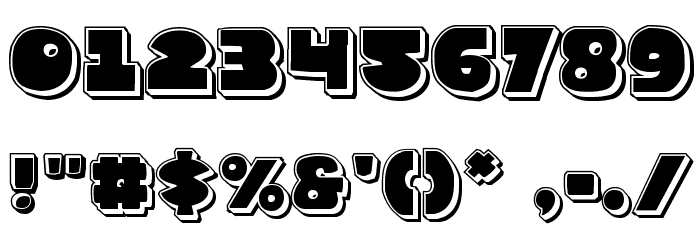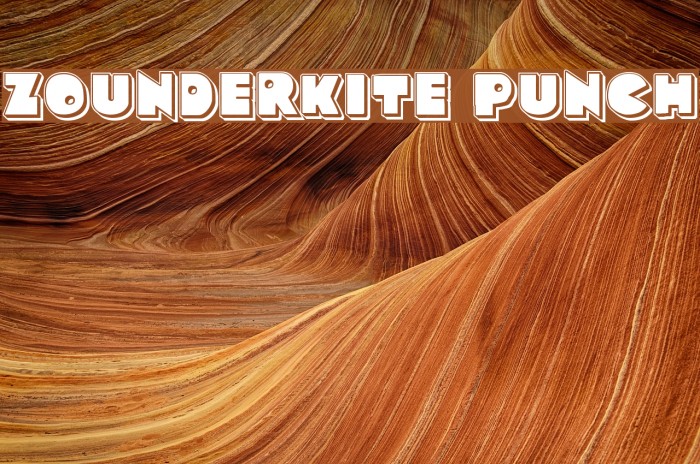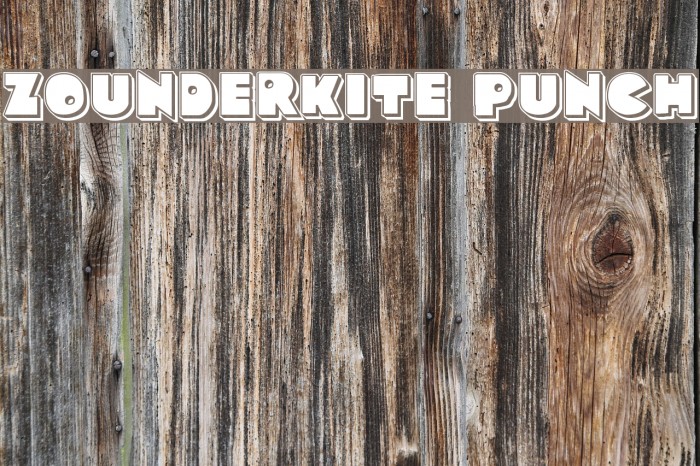
Zounderkite Punch Font
This font features a bold, playful design with a strong outline that gives each character a three-dimensional appearance. The letters are uppercase and lowercase, with a consistent thickness and rounded edges that add a friendly and approachable feel. The numbers and special characters follow the same style, ensuring uniformity across all glyphs. The font's thick strokes and outlined style make it highly visible and attention-grabbing, suitable for designs that require a bold statement. Its unique aesthetic is ideal for projects that aim to convey fun and creativity.
A bold, outlined font with a playful, three-dimensional style.
- Font: Zounderkite Punch
- Proposed Projects: Ideal for children's books, comic titles, posters, and playful branding.
- Overall Style: Playful, Bold, Decorative
- Use Case: Headlines, Posters, Logos